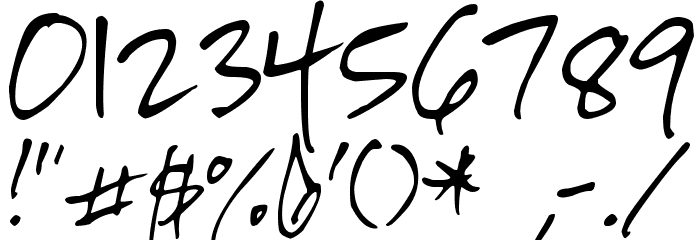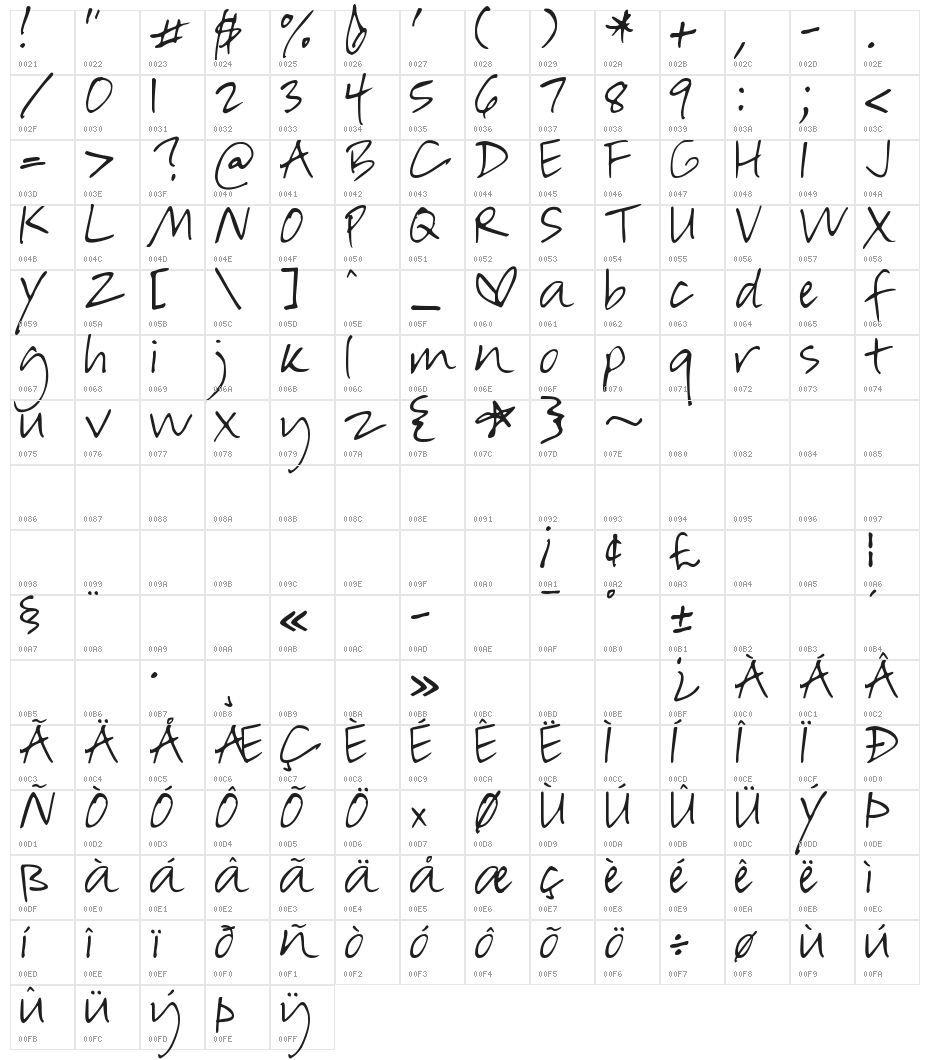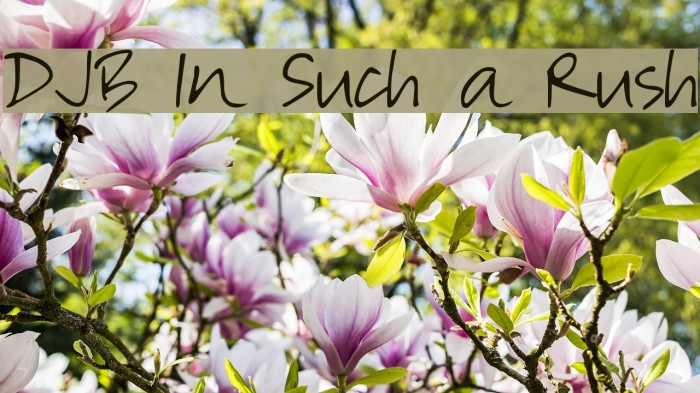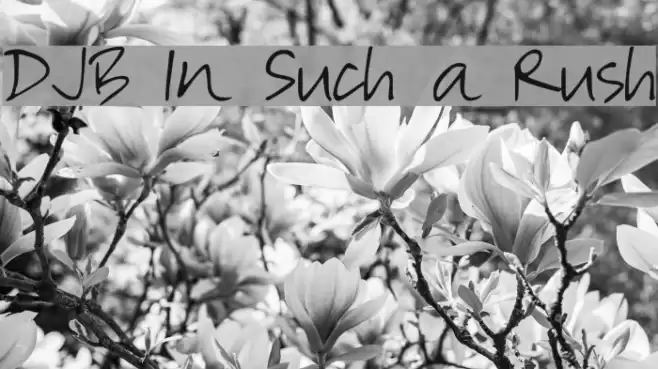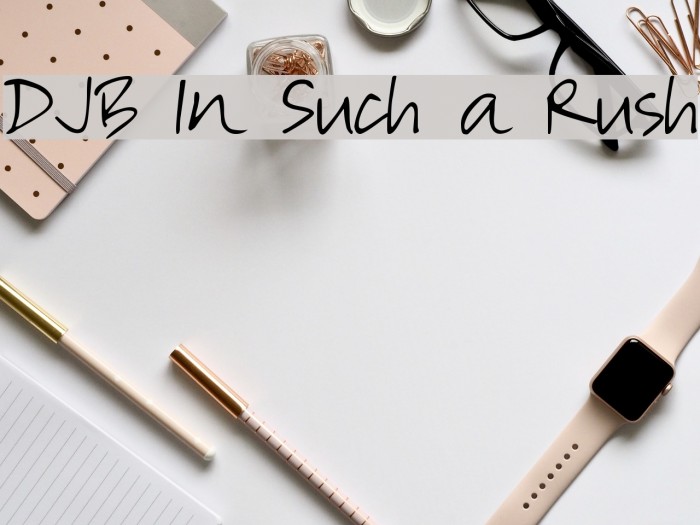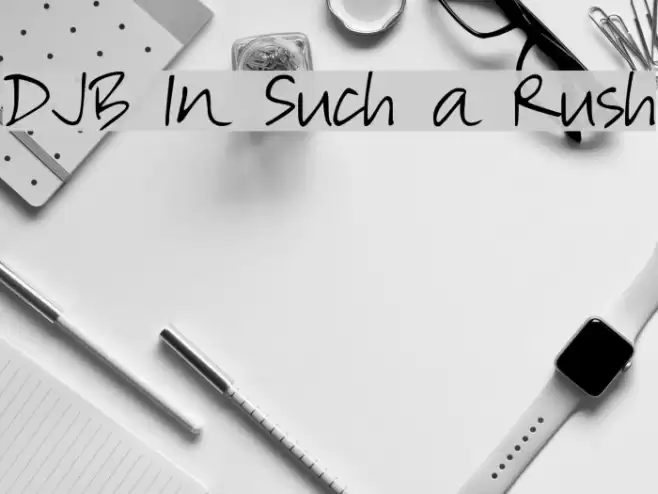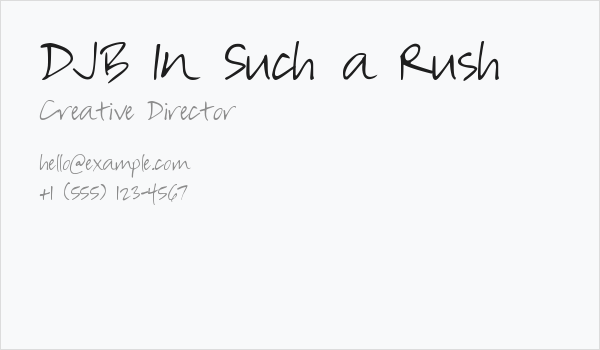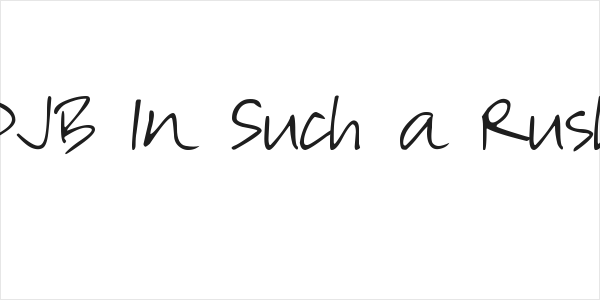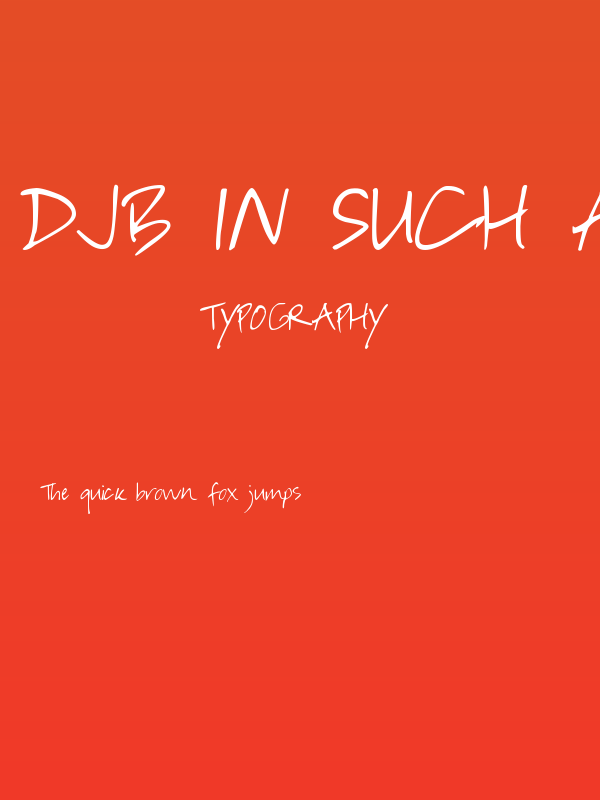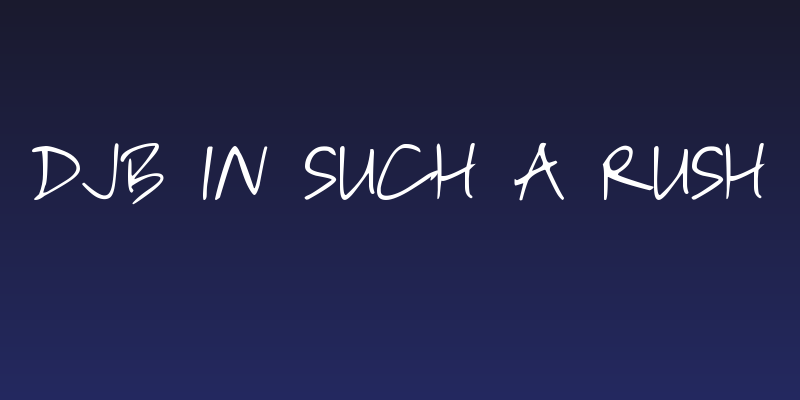
DJB In Such a Rush Font
DJB In Such a Rush Description
This font exudes a lively and spontaneous energy, characterized by its handwritten style that mimics the quick, fluid strokes of a marker or pen. The letters are slightly irregular, adding a personal and informal touch, while maintaining legibility. The uppercase and lowercase letters are distinct, with the uppercase being slightly more angular and the lowercase more rounded and flowing. Numbers and special characters follow the same dynamic style, making the font versatile for various uses. Its playful and casual appearance makes it ideal for projects that require a human touch, such as personal notes, invitations, or creative branding.
Overall StyleCasual
Use CaseHeadlines, Logos, Invitations
Proposed ProjectsIdeal for personal notes, creative branding, invitations, and casual designs.